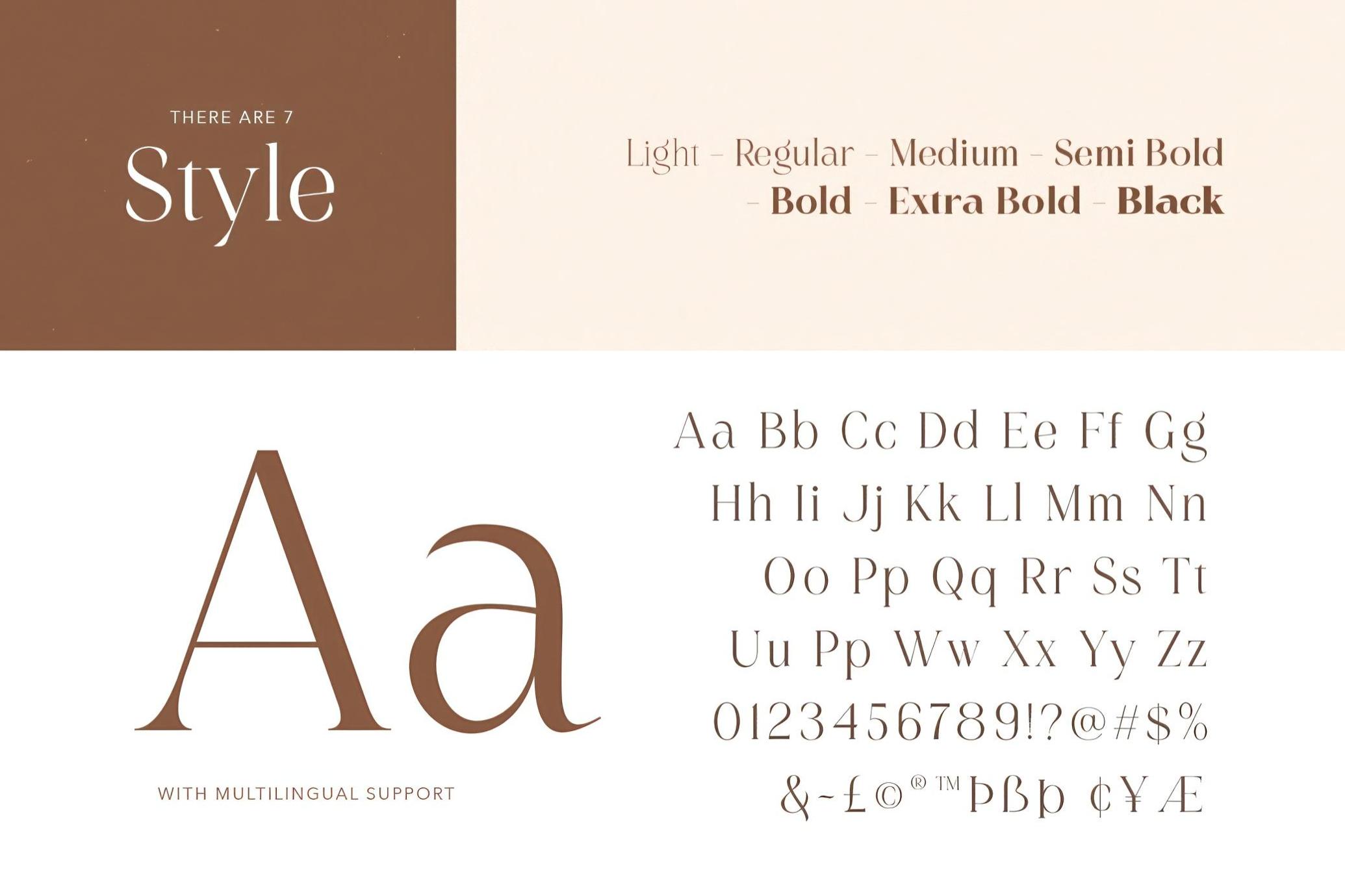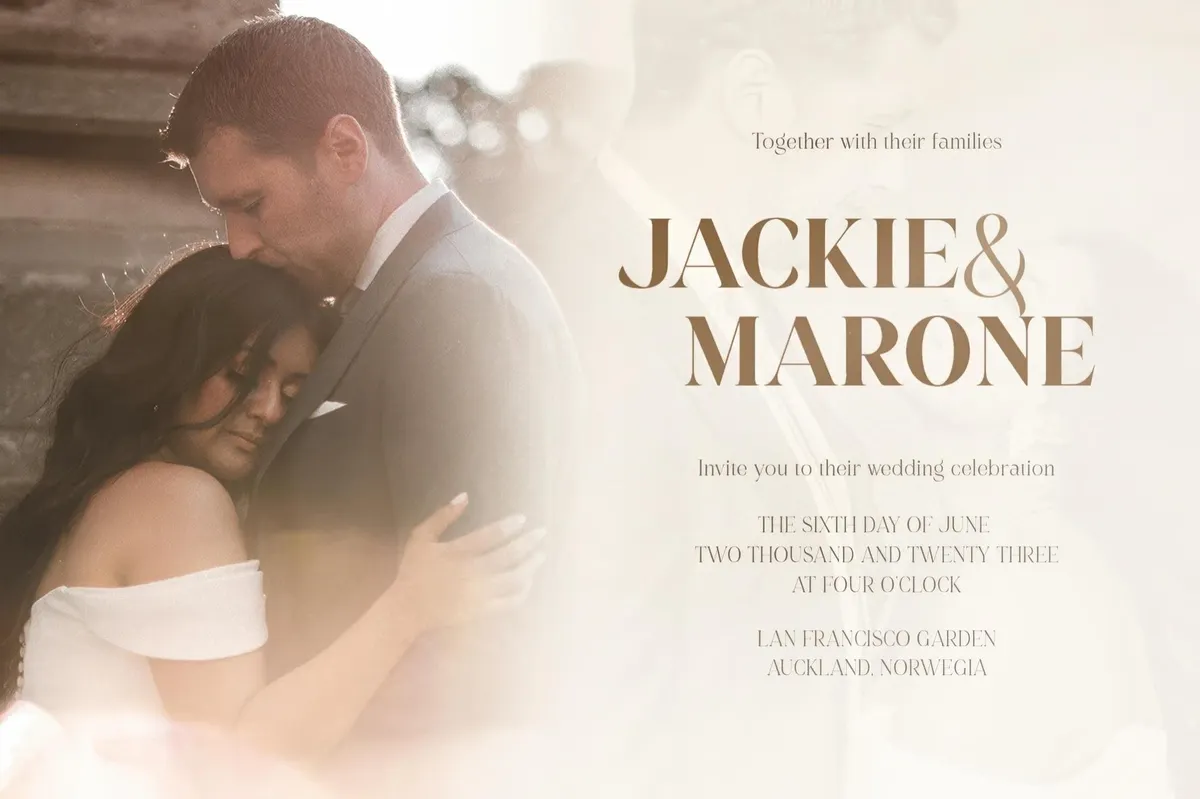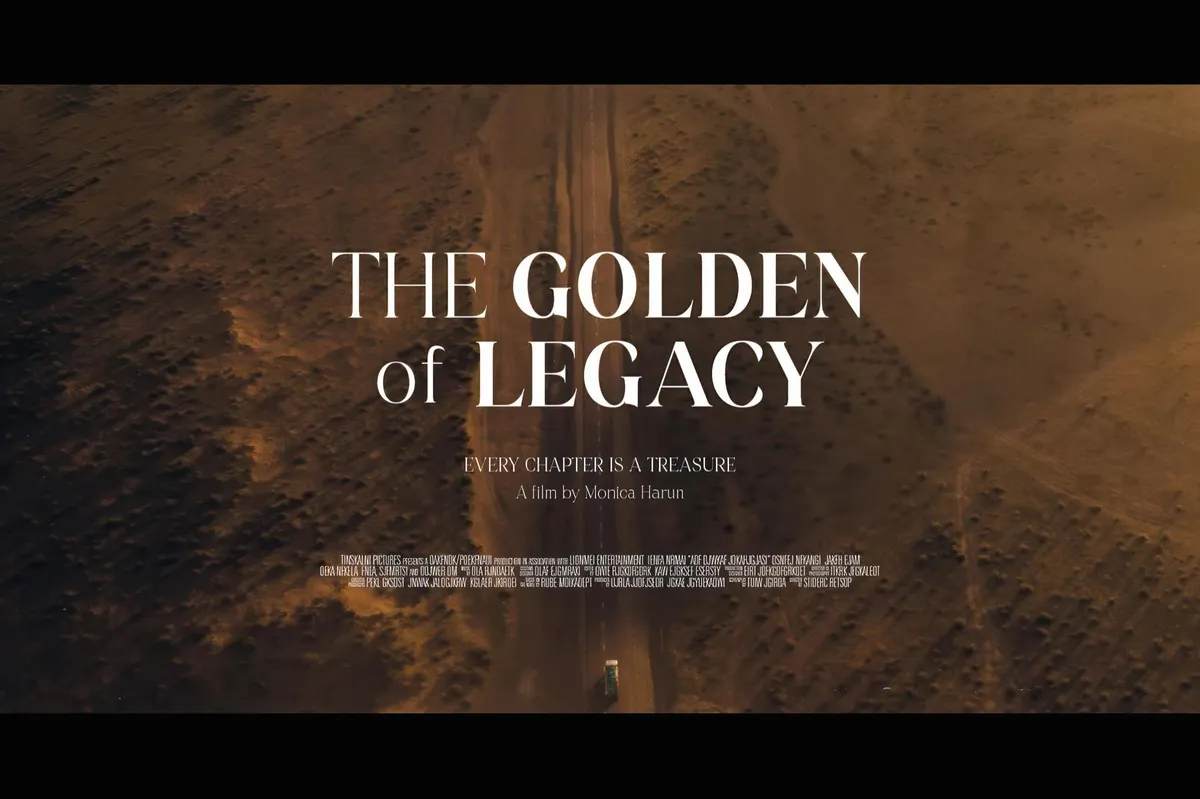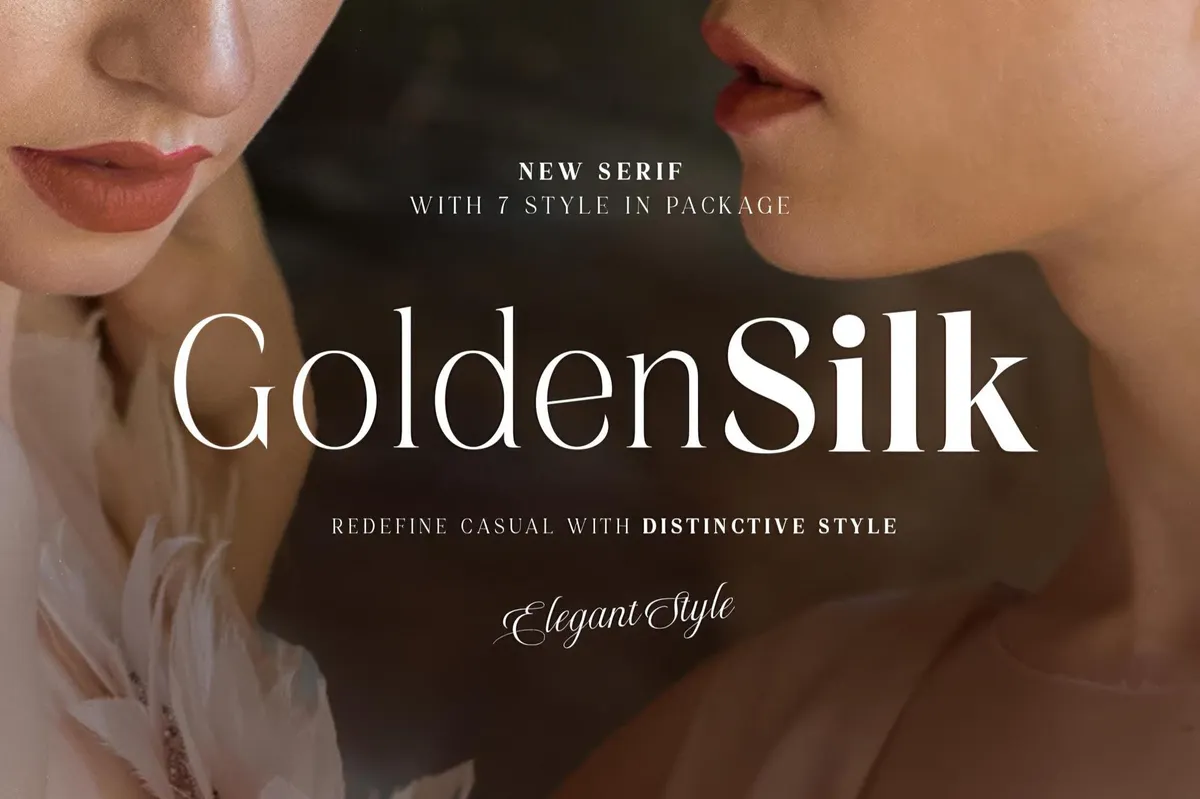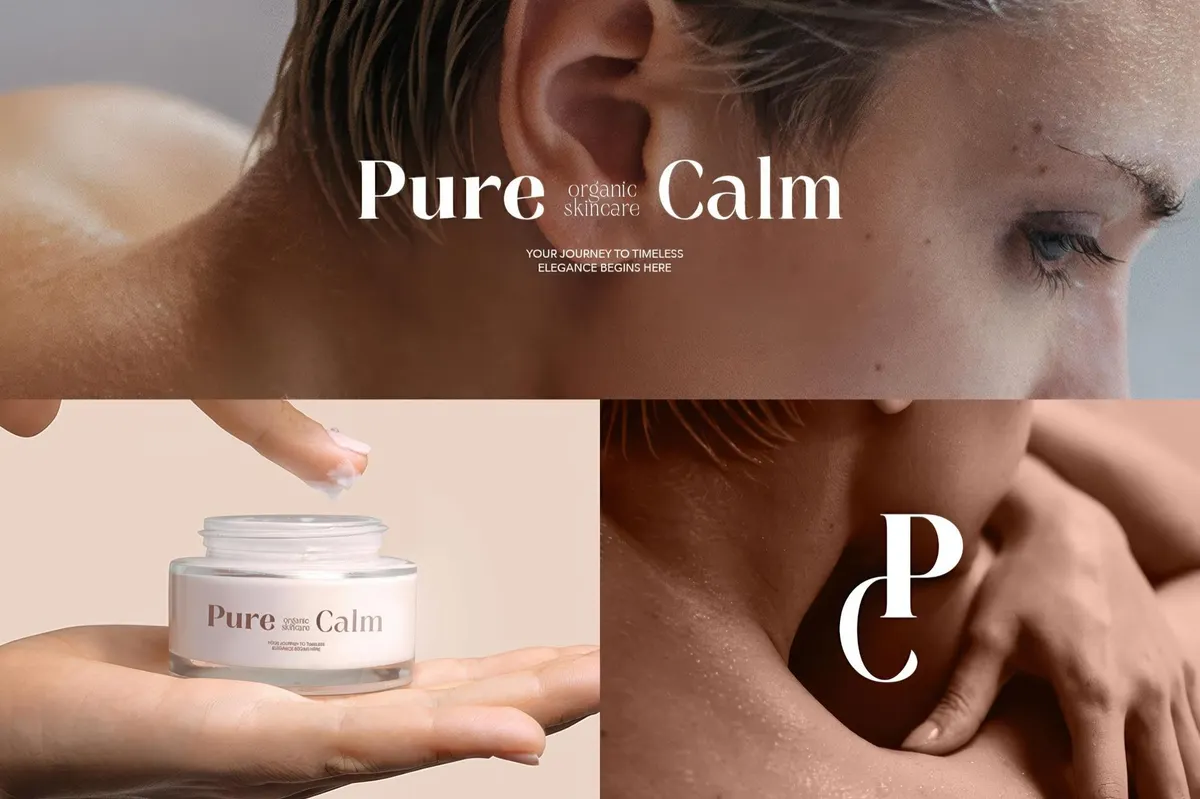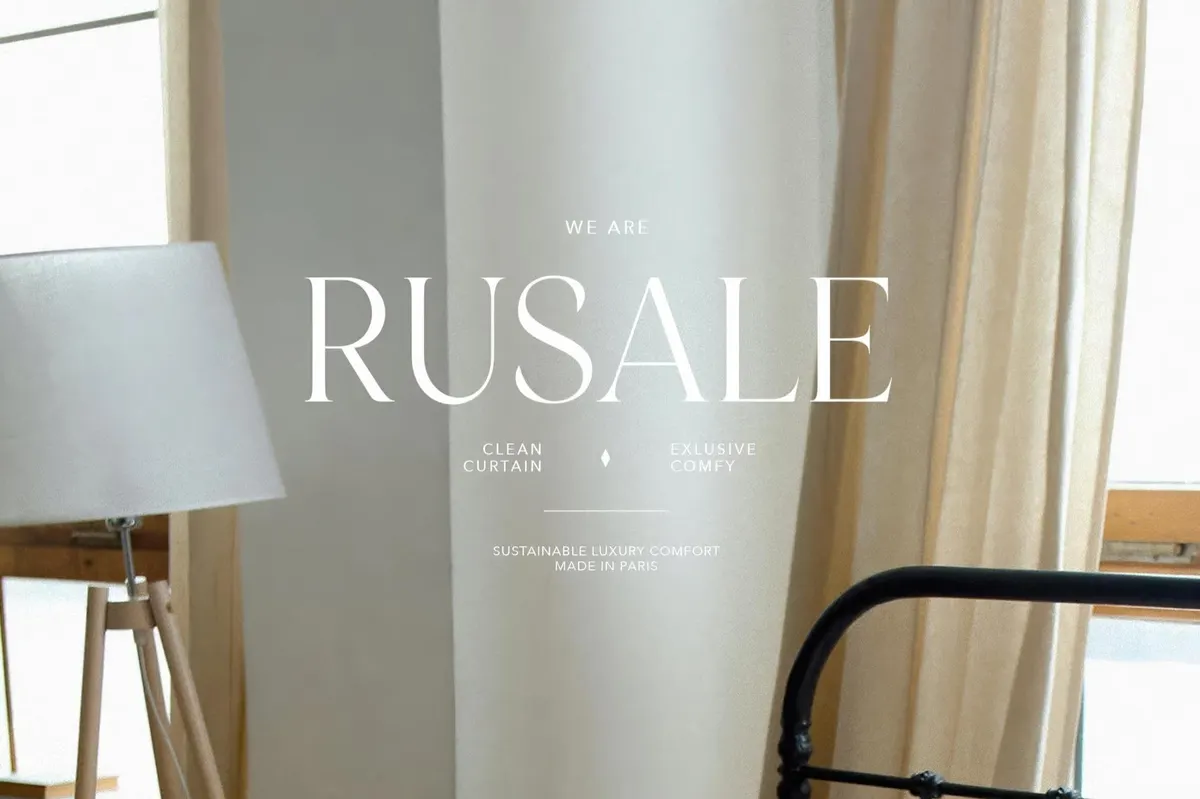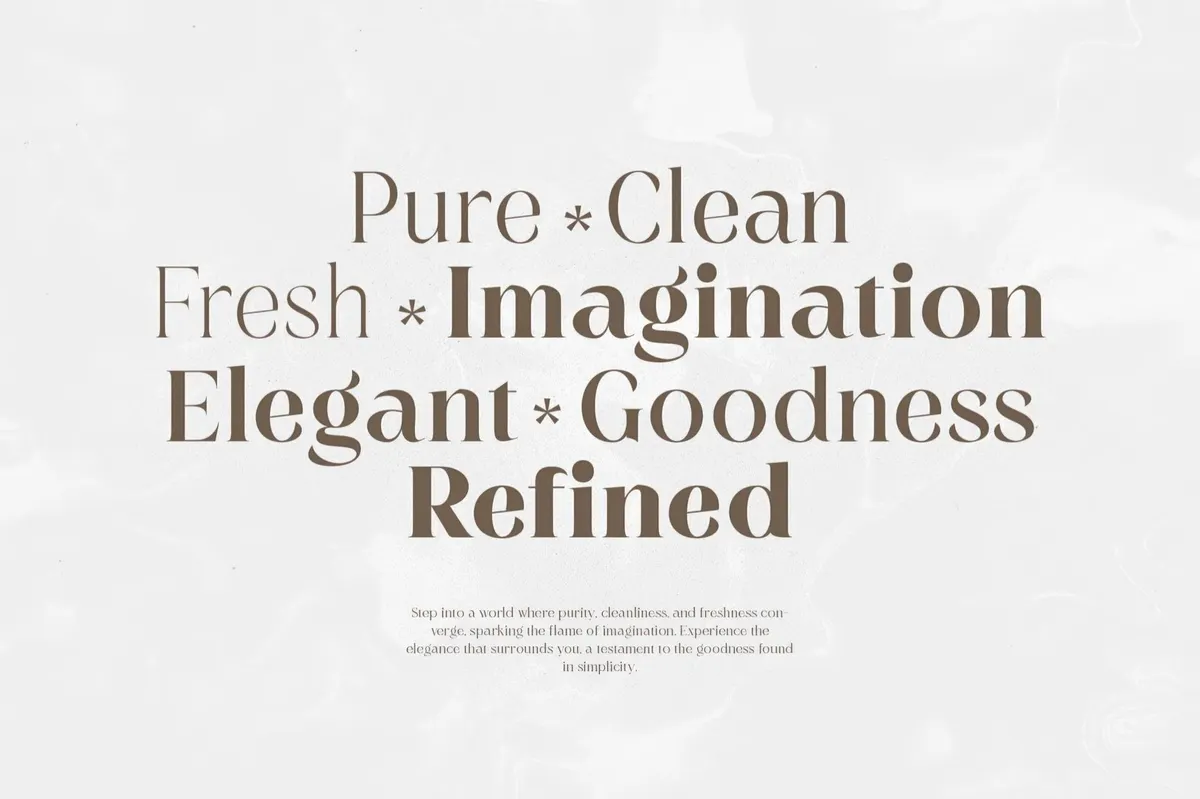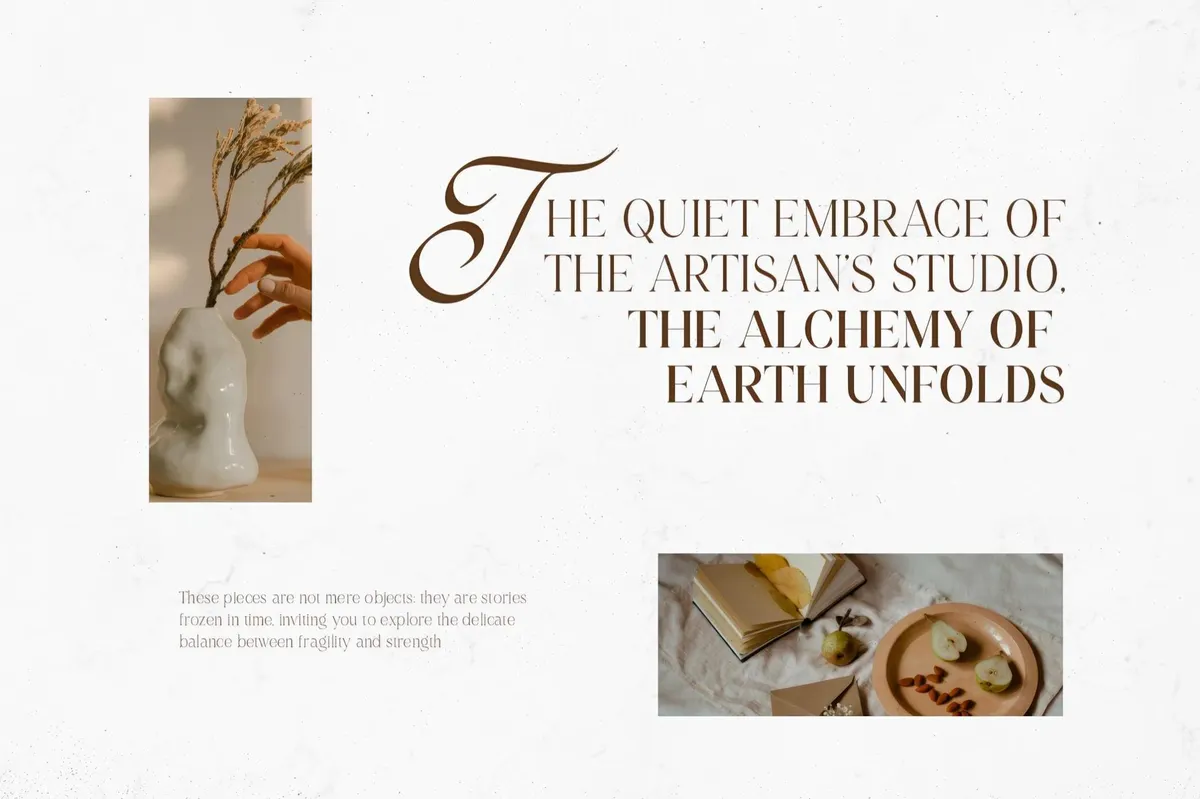
Golden Silk — Elegant Serif Family
Golden Silk is the typeface equivalent of slipping into something luxurious. With curves as smooth as its name implies and contrast that speaks volumes without shouting, this font family brings elegance to everyday design. Whether you’re typesetting a fashion editorial or branding a boutique skincare line, its timeless shape adapts from whisper-thin Light to confidently bold Black. The family includes 7 carefully crafted weights, multilingual support, and a complete glyph set of uppercase, lowercase, punctuation, and numerals. Use it for luxury packaging, editorial spreads, branding, or when you need to add refinement to logos that lean classic but still crave a modern twist.